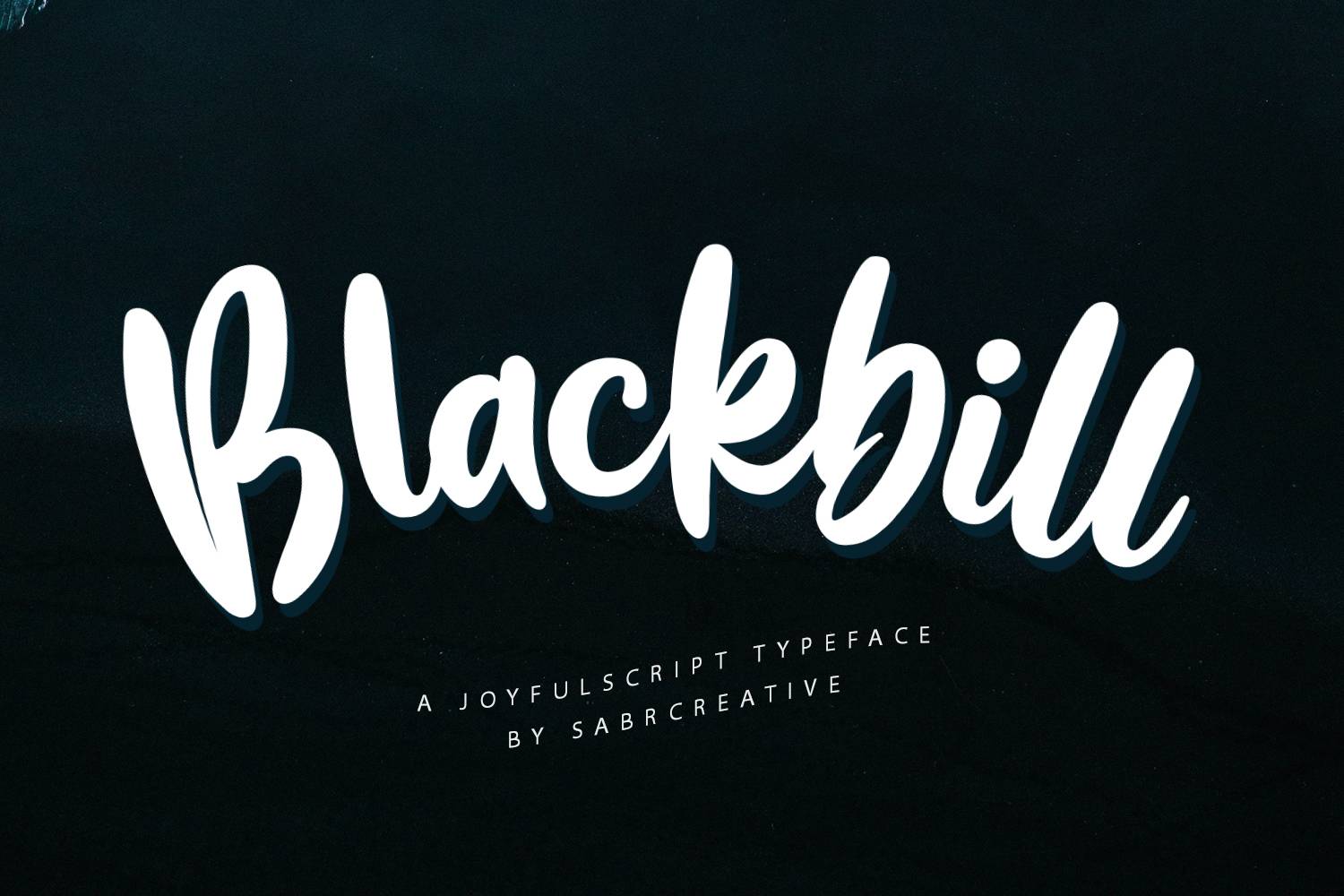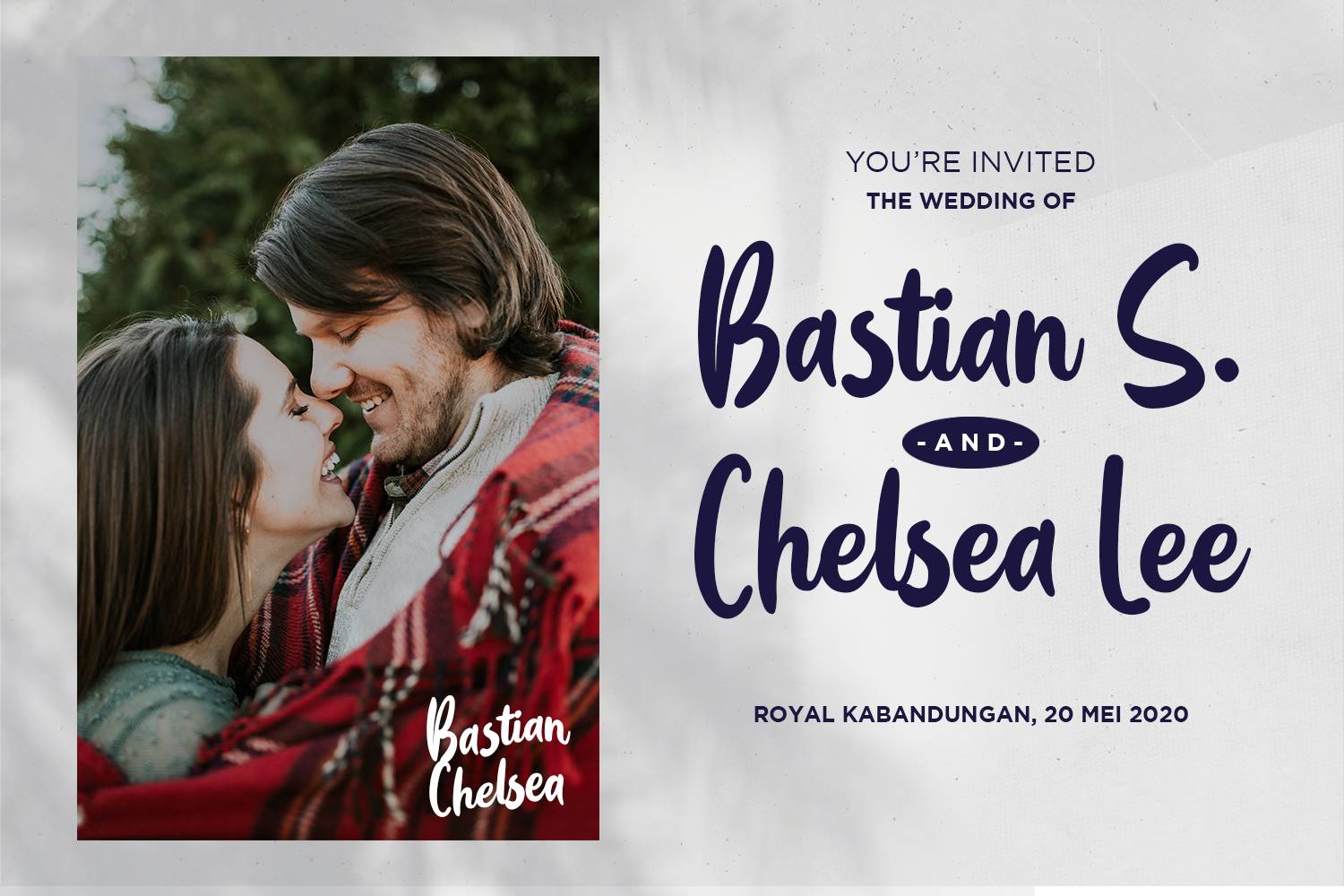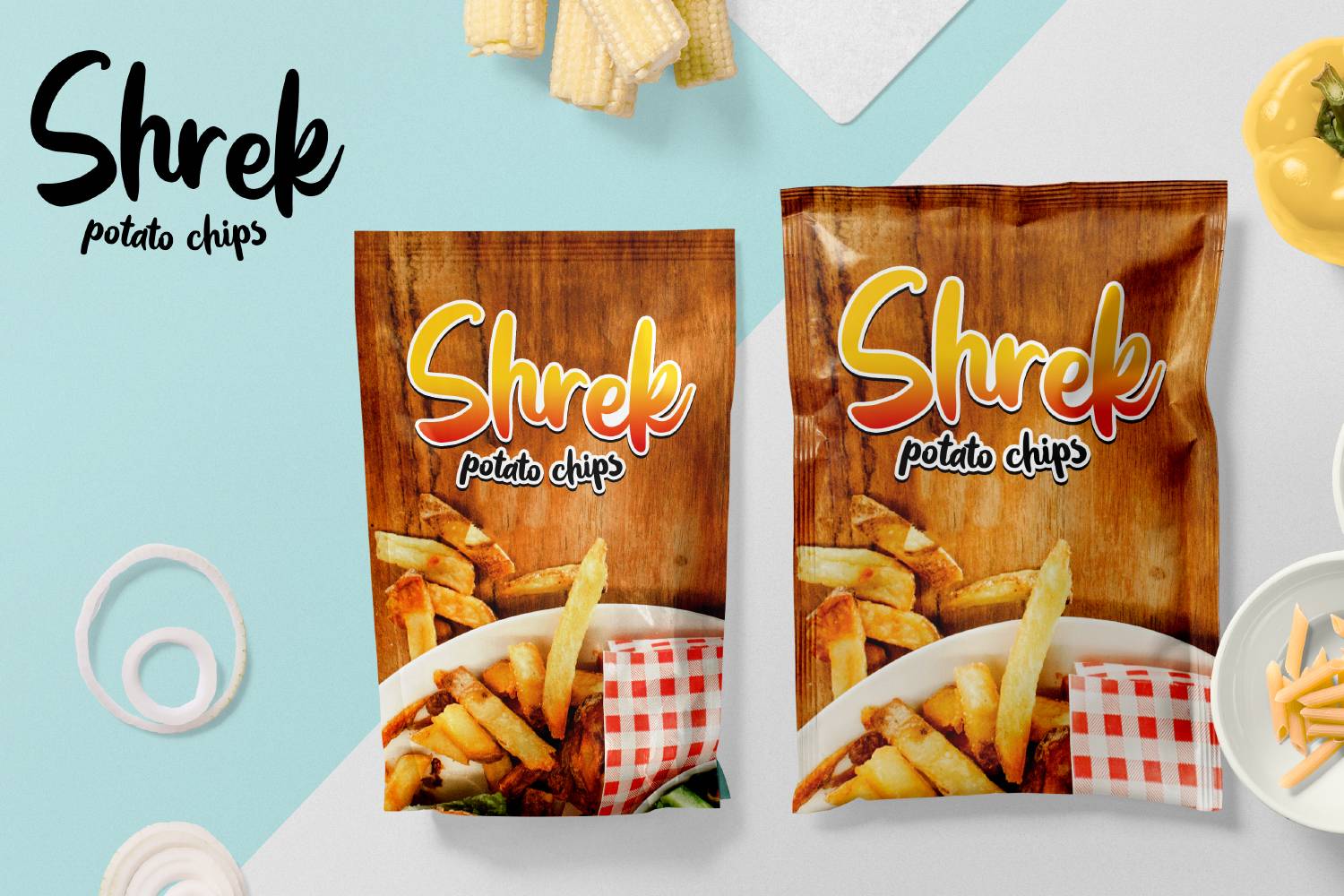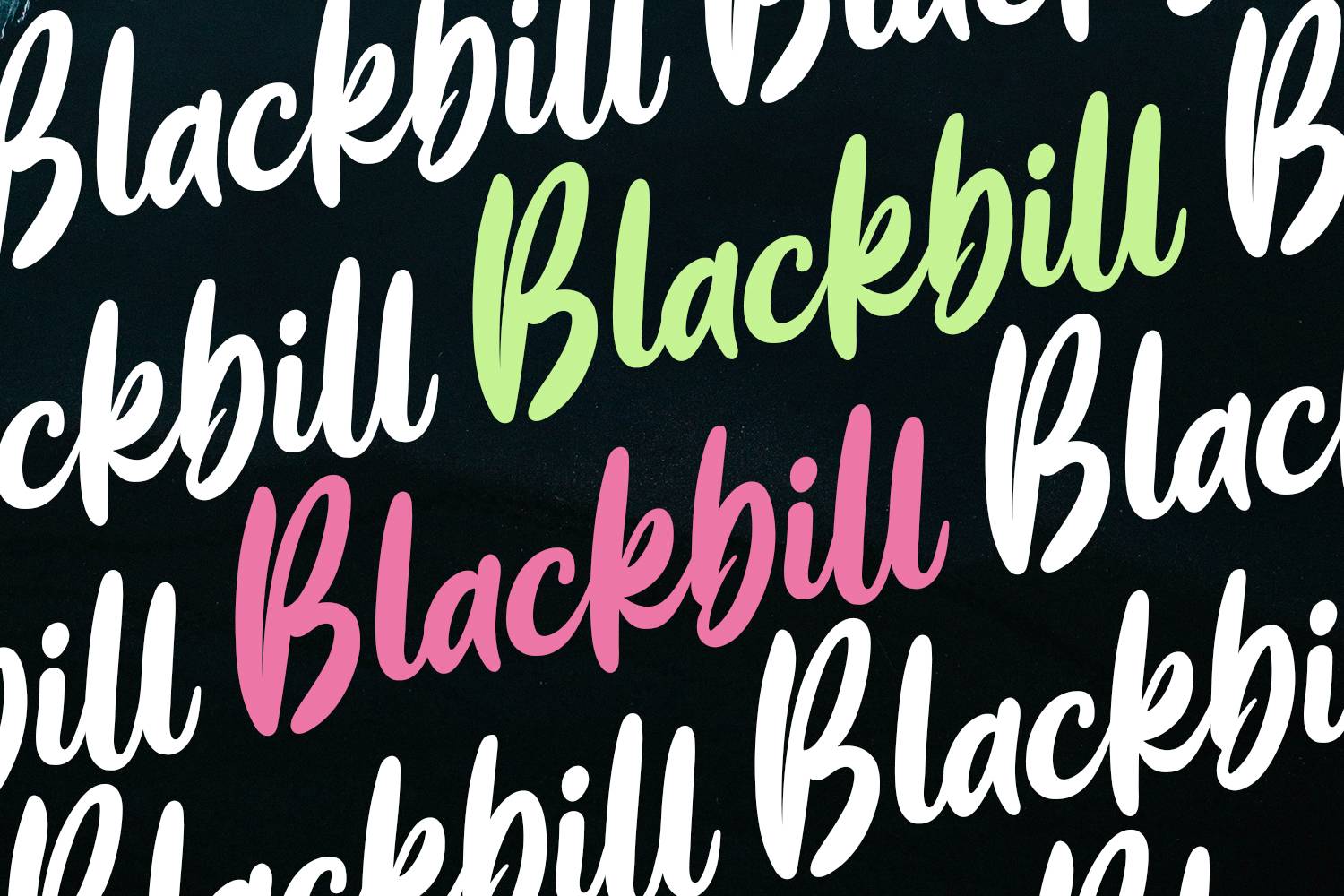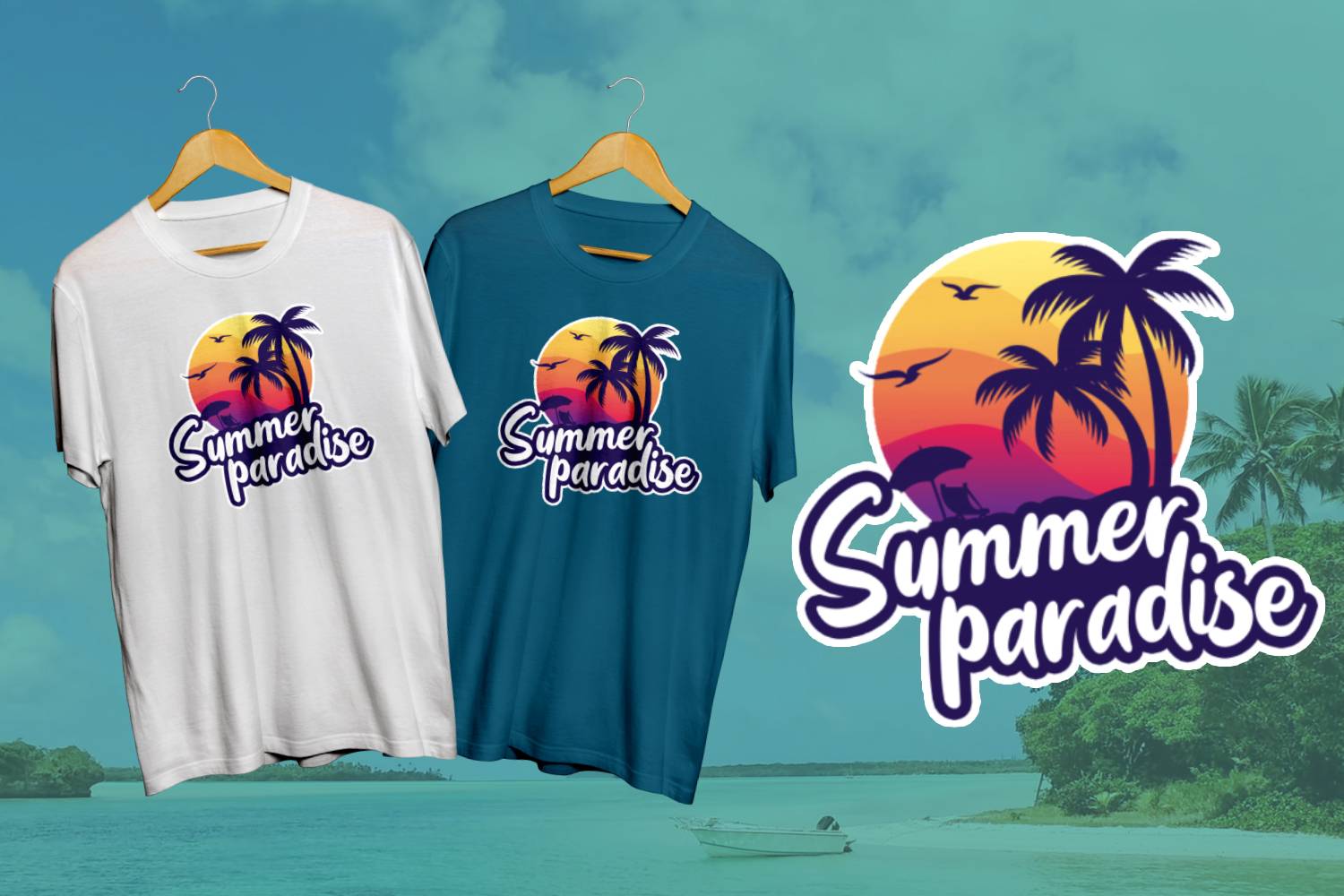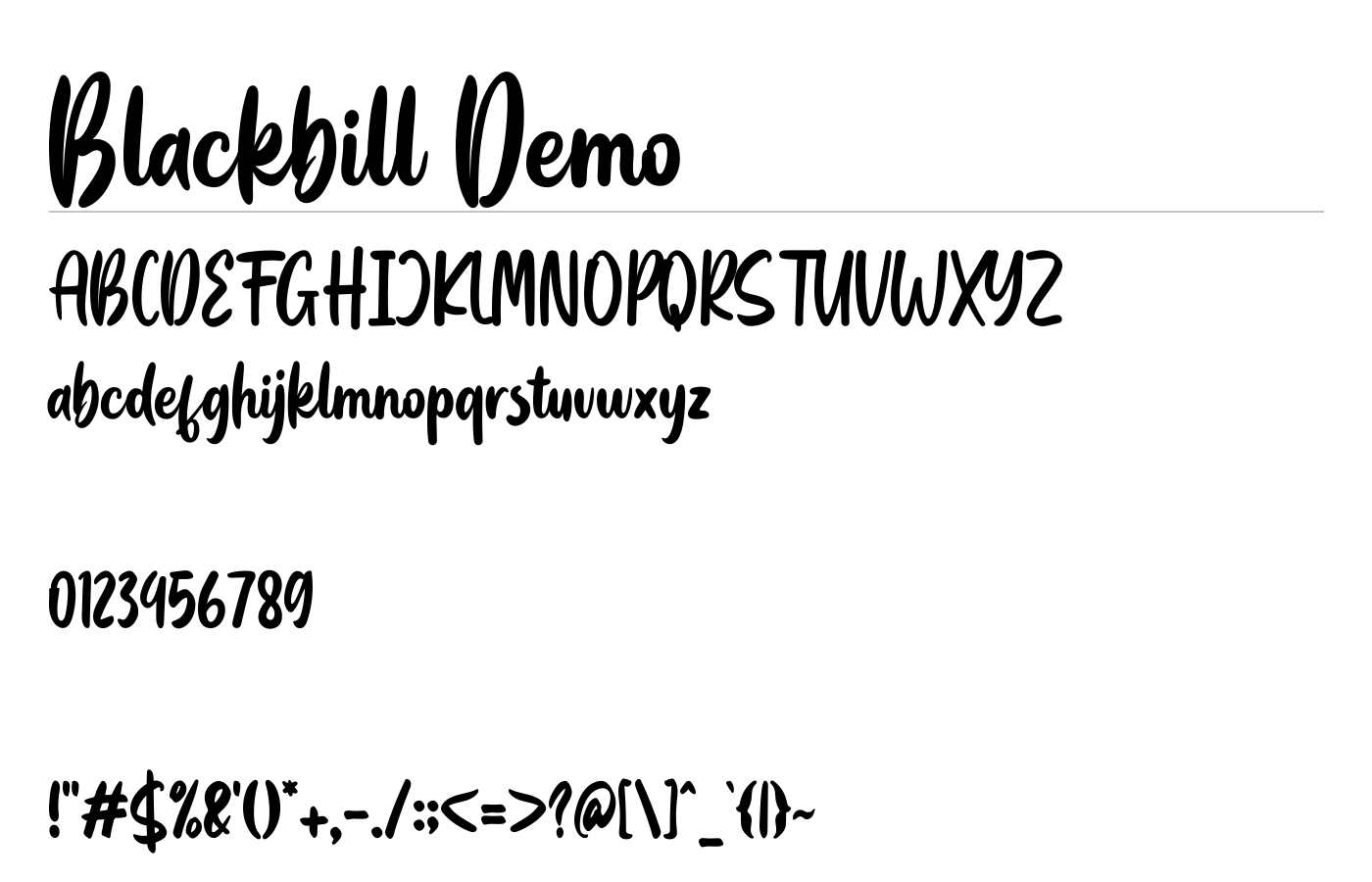
Blackbill is a bold, playful script font with a lively hand-drawn feel, featuring rounded strokes and smooth, organic curves. Its casual yet confident style makes it perfect for creative branding, invitations, and eye-catching headlines where a friendly, approachable vibe is desired.
Blackbill Font
About Blackbill Font
| Font family | Blackbill Font |
| Release date | 2018-09-22 |
| Designer | Sabrcreative Studio |